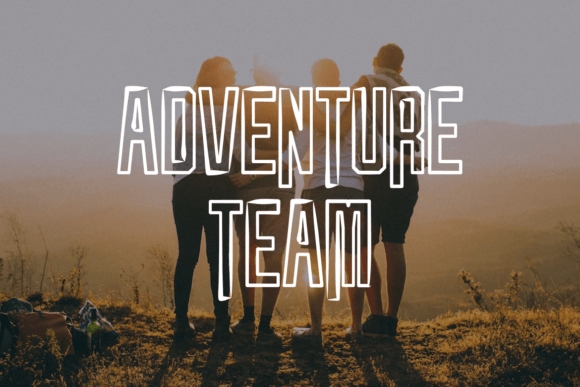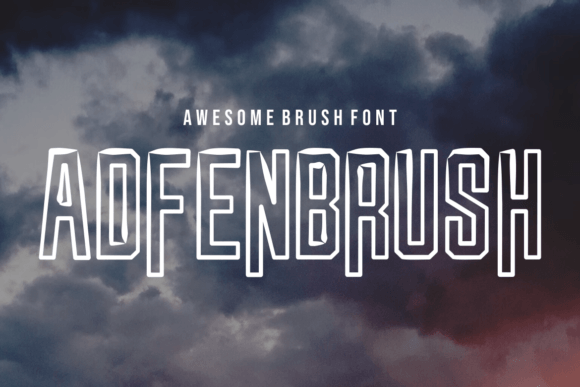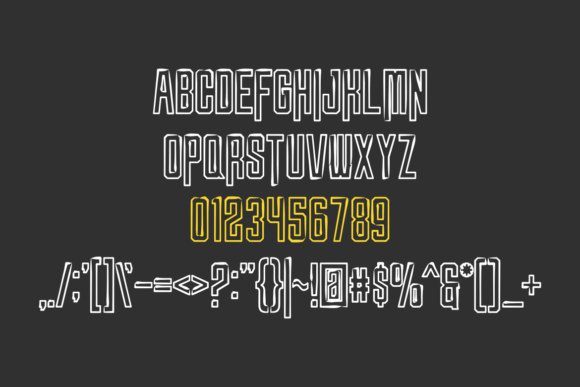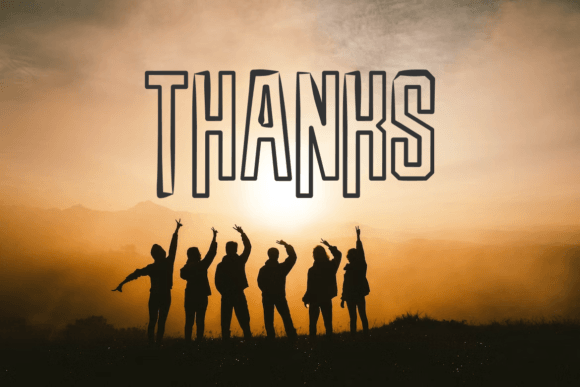
The Perfect Brushstroke: Unleashing the Potential of Adfenbrush Font
Have you ever been in the middle of a creative project, and that one perfect font just eludes you? You know, the one that makes your design pop and brings your vision to life? That’s exactly what happened to me when I stumbled upon the Adfenbrush Font – a modern and bold brush display font that has since become my go-to for all sorts of creative endeavors.
Whether you’re crafting a handmade card, designing a presentation, or working on a digital project, the Adfenbrush Font is an invaluable addition to any designer’s toolkit. Its versatility and unique style make it perfect for a wide range of applications, from informal projects to professional designs. With the Adfenbrush Font, you can add a touch of personality and whimsy to your work, making it truly stand out from the crowd.
Adfenbrush Font Key Features
- Font Family: Adfenbrush is a unique, hand-drawn sans-serif font family designed for various digital applications.
- Unique Characteristics: Adfenbrush features a distinctive, brush-like aesthetic with subtle imperfections and texture, adding a touch of handcrafted charm to digital designs.
Adfenbrush Font Review
I recently had the chance to work with the Adfenbrush Font, and I have to say, it’s been a mixed bag. On the one hand, there are some things that really shine.
✨ The Adfenbrush Font has a unique, hand-drawn feel that can really add some character to a design. It’s great for projects that need a bit of whimsy or personality.
✨ The font is also very versatile, with a wide range of weights and styles to choose from. This makes it easy to use in a variety of contexts, from headlines to body text.
However, there are also some limitations to consider.
- ⚠️ The Adfenbrush Font can be a bit difficult to read at smaller sizes. The hand-drawn feel that’s so charming at larger sizes can become a bit illegible at smaller sizes.
- ⚠️ The font also has some inconsistencies in terms of spacing and kerning. This can make it difficult to use in long blocks of text.
Overall, I’d say the Adfenbrush Font is a solid choice for designers who want to add a bit of personality to their projects. However, it may not be the best choice for projects that require a high level of readability or consistency.
What is the recommended font size and line height for Adfenbrush?
For optimal readability, we recommend using Adfenbrush at a font size of at least 18 points, with a line height of at least 1.5 times the font size. This will help to ensure that the text is clear and legible, even at larger font sizes.